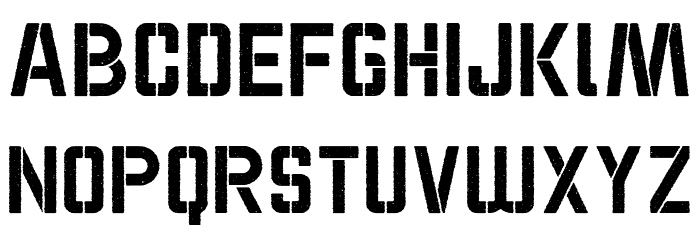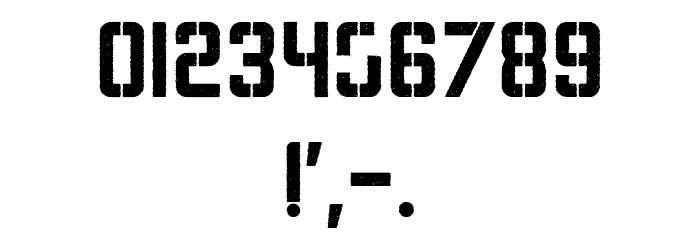
WOK STENCIL - CAPS ARMY Font
This font features a bold, stencil-like design that evokes a military or industrial aesthetic. The characters are uppercase and have a distinct, rugged appearance with breaks in the strokes, typical of stencil fonts. This style is reminiscent of markings used on crates or vehicles, providing a utilitarian and robust feel. The font's boldness ensures high visibility and impact, making it suitable for attention-grabbing designs. The characters are evenly spaced, with a consistent width that enhances readability. The numbers and punctuation maintain the same stencil style, ensuring uniformity across all characters.
A bold, stencil-style font with a military-inspired design.
- Proposed Projects: Ideal for military-themed projects, industrial design, posters, signage, and branding that requires a strong, impactful look.
- Overall Style: Industrial, Military
- Use Case: Headlines, Logos, Signage